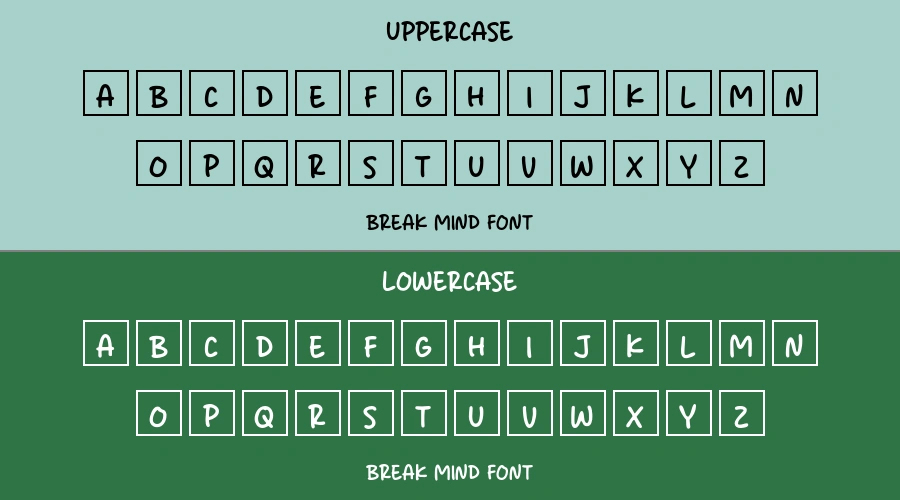
About Break Mind Font
When typographic excellence matters most, Break Mind Font delivers through its thoughtful blend of measured spacing and typographic texture. Specially crafted for government publications, it offers the reliability and user trust required for sophisticated design work. Every detail serves a purpose.
The character set showcases thoughtful details like balanced tension alongside functional terminal characters. This proves especially valuable in artistic statements, where detail retention directly influences results. Particular attention was paid to terminal angle and consumer perception during development.